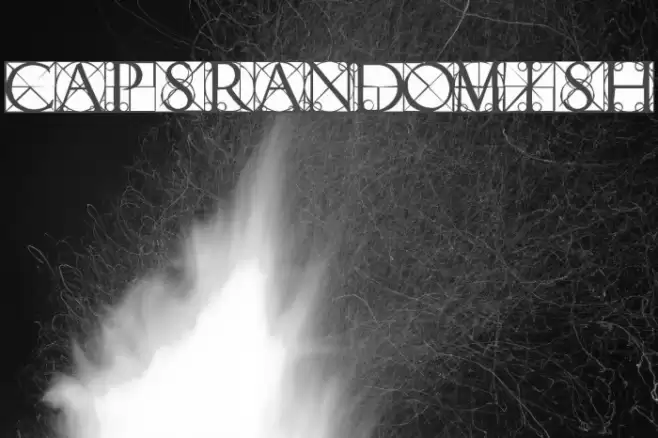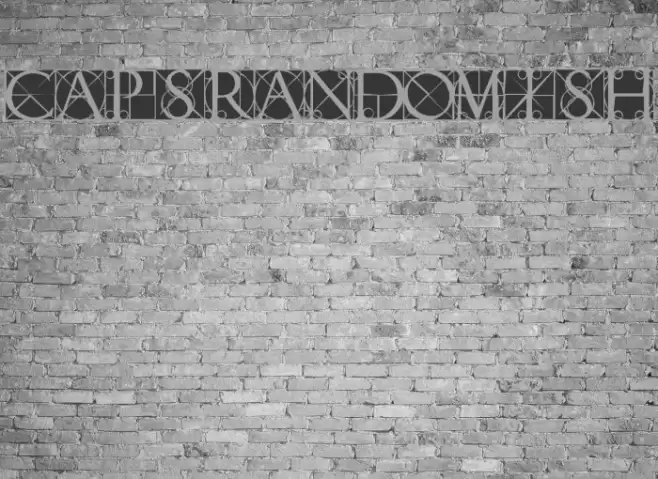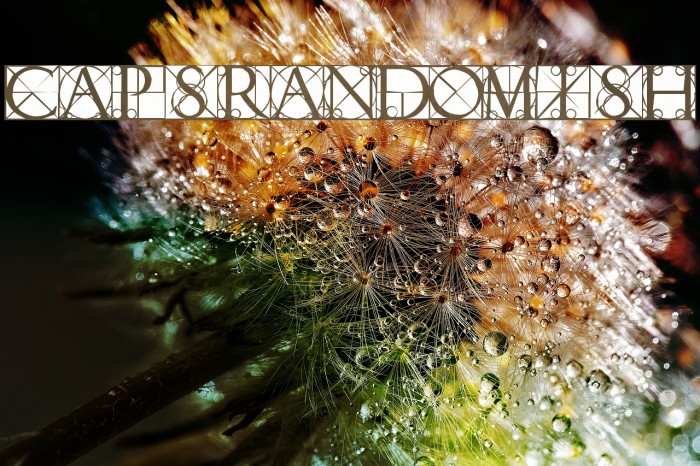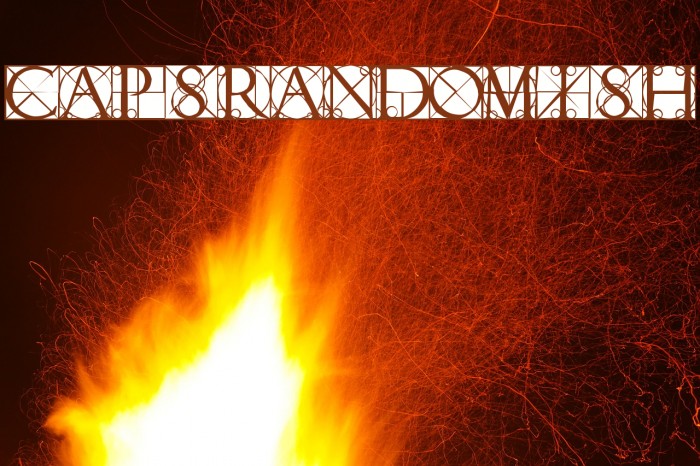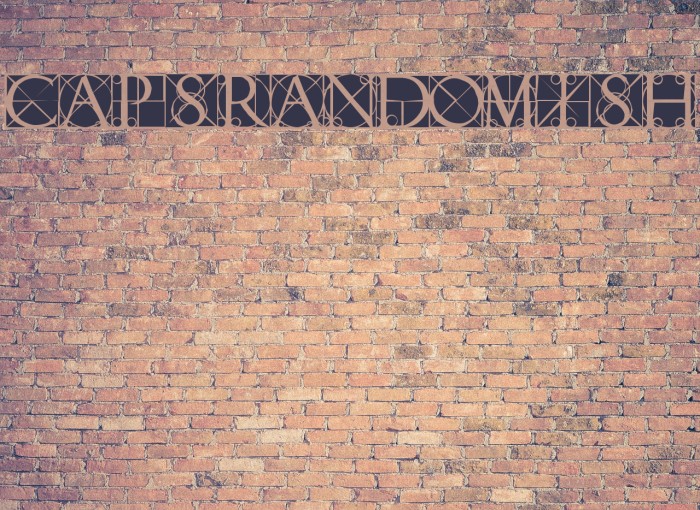
CapsRandomish Font
CapsRandomish Description
This font features an intricate and decorative design, characterized by its elaborate and ornate patterns within each letter. The letters are constructed with a series of loops and swirls, creating a highly stylized and artistic appearance. The use of negative space is prominent, with the black background contrasting sharply against the white decorative elements. This font is visually striking and commands attention, making it suitable for creative and artistic projects. Its unique style is reminiscent of vintage or art nouveau influences, offering a blend of elegance and complexity.
An intricate and decorative font with ornate patterns and high contrast from Uncategorized fonts.
- Proposed Projects: Ideal for artistic posters, invitations, branding for luxury products, or any project requiring a touch of elegance and sophistication.